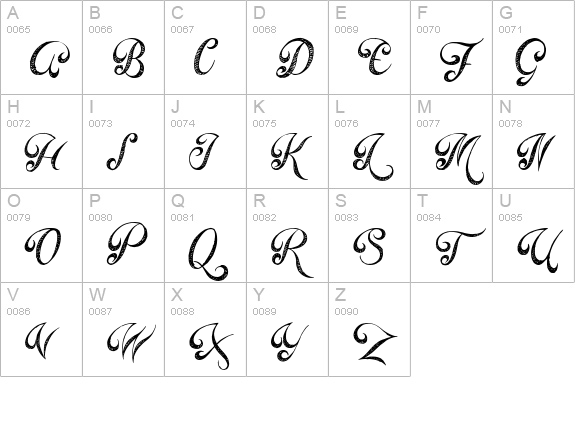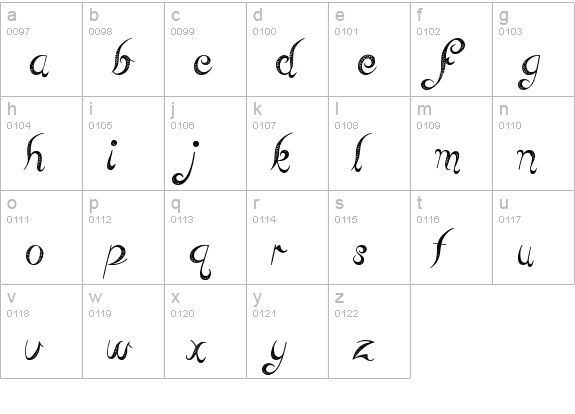
Summer Vacation Font Details
Introducing Summer Vacation, a captivating and vibrant font that captures the essence of carefree summer days. With its playful yet sophisticated design, this font is the perfect companion for all your summer-themed projects, from party invitations to travel brochures. Summer Vacation font features beautifully handcrafted letterforms that evoke a sense of warmth and relaxation. Its flowing curves and whimsical details bring to mind sandy beaches, refreshing ocean waves, and the joyful laughter of friends and family. Whether you're designing a summer-themed poster, creating a vacation scrapbook, or adding a touch of summer to your branding materials, Summer Vacation font will effortlessly infuse your designs with a sense of fun and adventure. The best part? Summer Vacation font is completely free! Yes, you read that right. This delightful font is freely available to download at FontsMarket.com, the go-to destination for high-quality fonts. No need to worry about breaking the bank or sacrificing style – Summer Vacation font is here to elevate your designs without costing you a dime. So go ahead, download Summer Vacation font today and let it transport you to sun-drenched destinations and unforgettable memories. Whether you're a seasoned designer or just starting out, this font will add a touch of summer magic to your creations. Embrace the freedom to express your creativity and make your designs shine with Summer Vacation font – a truly delightful and freely accessible addition to your font collection.